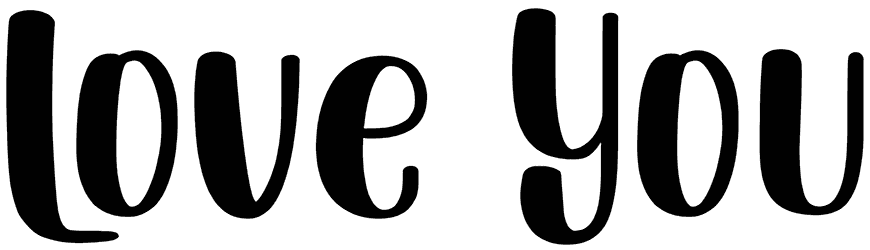
Love You Font
Do you want to have an eye-catching visual for your words but keep them readable? Using a soft love font like this one would be a clever pickup. Having A-Z characters will give you a great chance to use this invitation font for different ideas. The cute form of the Love You font is going to make your birthday Instagram post memorable.